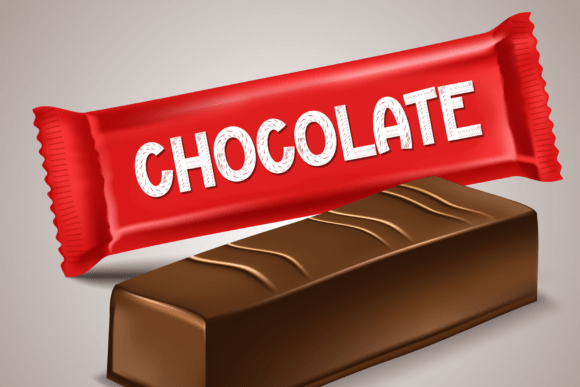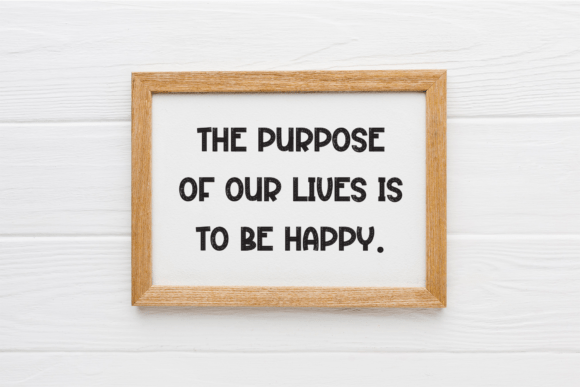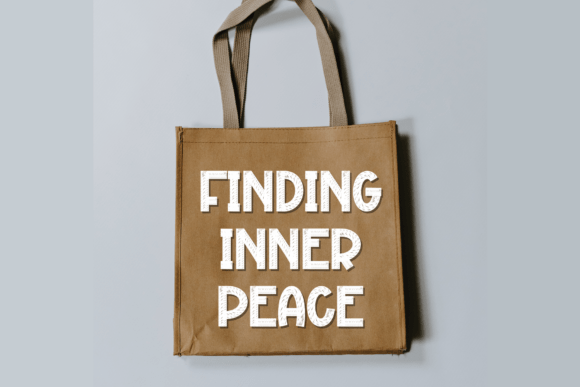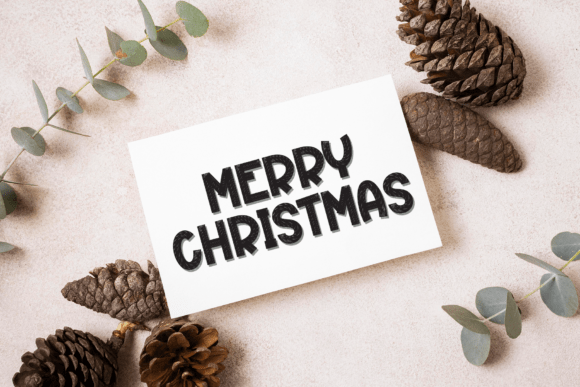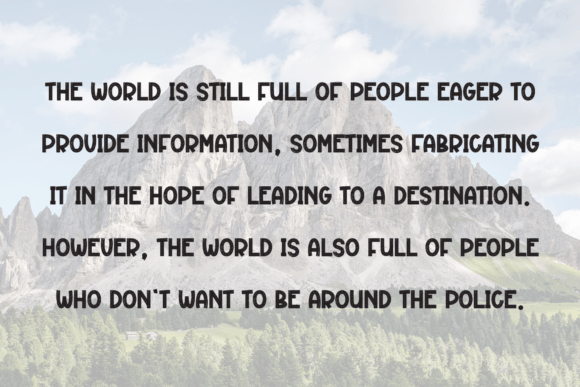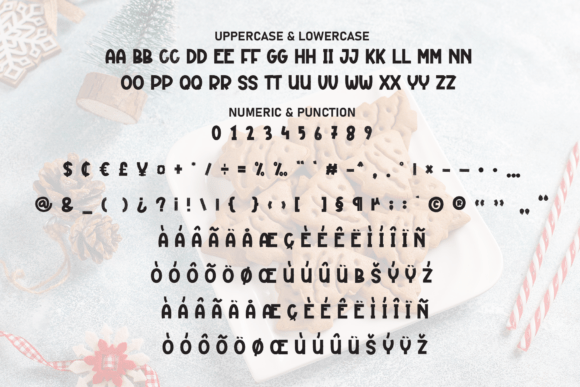
Cokies Winter Font: A Modern Display Font to Elevate Your Designs
Are you tired of using the same old fonts in your designs? Look no further than Cokies Winter Font, an expressive modern display font that is sure to add a touch of energy and charm to your creative projects. In this article, we’ll take a closer look at Cokies Winter Font, its features, and how you can use it to take your designs to the next level.
What is Cokies Winter Font?
Cokies Winter Font is a modern display font designed to make a statement. With its unique and expressive lettering style, this font is perfect for designers and crafters looking to add a touch of personality to their work. Whether you’re creating a logo, poster, or social media graphic, Cokies Winter Font is sure to grab attention and leave a lasting impression.
Key Features of Cokies Winter Font
So, what makes Cokies Winter Font so special? Here are just a few of its key features:
- Expressive lettering style: Cokies Winter Font features a unique and expressive lettering style that is sure to add a touch of personality to your designs.
- Modern and trendy: This font is perfect for designers and crafters who want to stay on top of the latest design trends.
- High-quality design: Cokies Winter Font is designed with high-quality craftsmanship in mind, ensuring that your designs look professional and polished.
- Easily readable: Despite its unique style, Cokies Winter Font is still easily readable, making it perfect for use in a variety of design applications.
How to Use Cokies Winter Font in Your Designs
So, how can you use Cokies Winter Font in your designs? Here are a few ideas to get you started:
- Logos and branding: Cokies Winter Font is perfect for creating unique and memorable logos and branding materials.
- Posters and flyers: Add a touch of energy and charm to your posters and flyers with Cokies Winter Font.
- Social media graphics: Use Cokies Winter Font to create eye-catching social media graphics that are sure to grab attention.
- Packaging design: Add a touch of personality to your packaging design with Cokies Winter Font.
Tips for Getting the Most Out of Cokies Winter Font
Here are a few tips for getting the most out of Cokies Winter Font:
- Experiment with different colors: Cokies Winter Font looks great in a variety of colors, so don’t be afraid to experiment and find the perfect hue for your design.
- Play with font sizes: Cokies Winter Font looks great in a variety of font sizes, from large and bold to small and subtle.
- Combine with other fonts: Cokies Winter Font pairs well with a variety of other fonts, so don’t be afraid to get creative and try out different combinations.
- Is Cokies Winter Font easy to read?: Yes, despite its unique style, Cokies Winter Font is still easily readable.